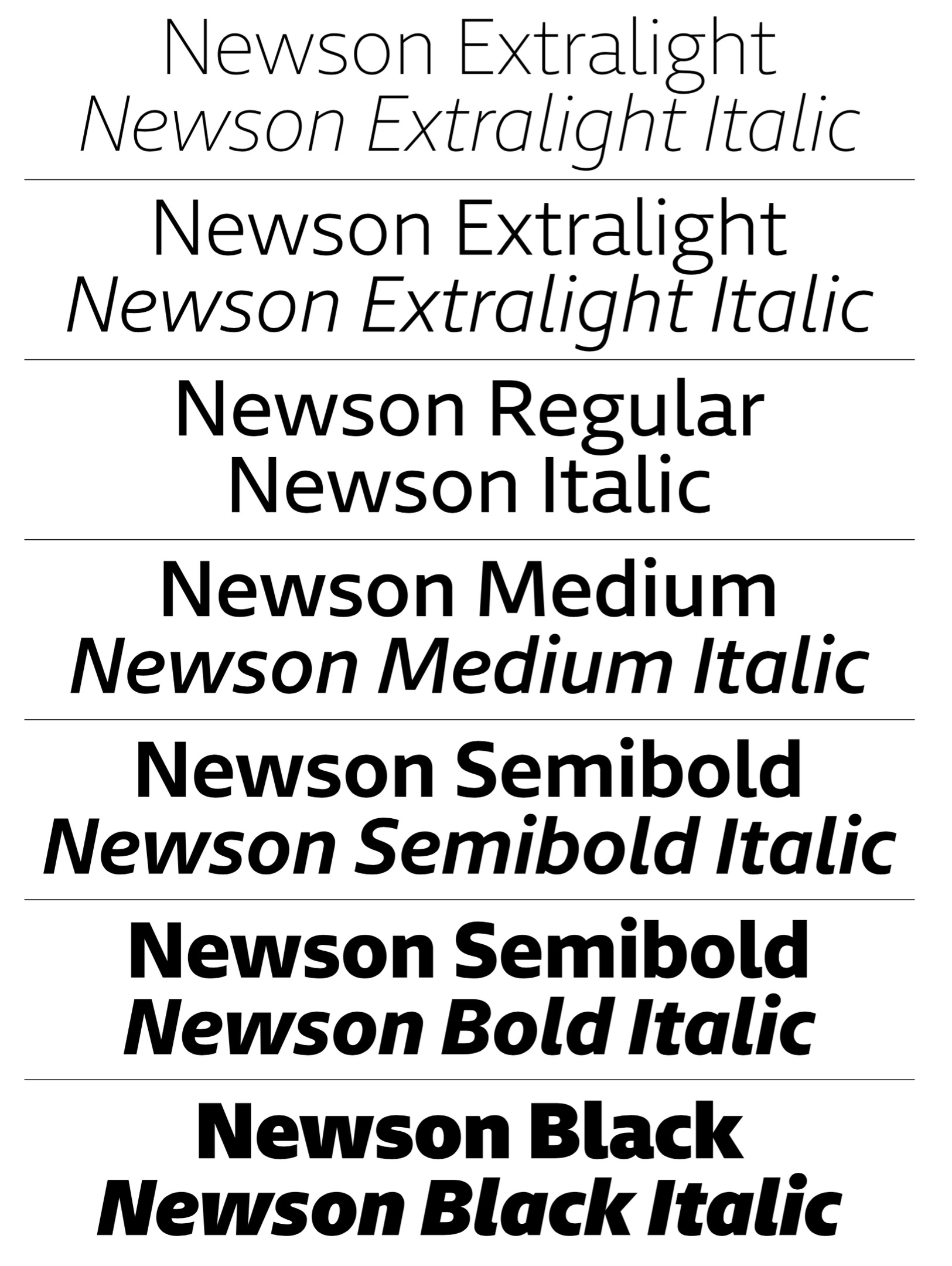
Newson Font
Newson Font is perfect for contemporary news publications, digital journalism platforms, modern magazine layouts, editorial design projects, broadcast media graphics, online news websites, progressive newspaper design, media company branding, journalistic documentation, and information design applications. This modern typeface excels in applications where editorial clarity, news credibility, and contemporary communication are fundamental requirements.
Newson Font is exciting because it revolutionizes news typography by combining the authority of traditional journalism with the clarity demands of digital media consumption. Its carefully engineered letterforms feature optimized spacing, enhanced character distinction, and systematic proportions that ensure exceptional readability across all platforms from smartphone screens to large format displays. The font's contemporary character conveys journalistic integrity while embracing the visual requirements of modern multimedia storytelling.
The Newson Font family includes Regular, Bold, Light, Italic, Condensed, and Display variations, each optimized for different editorial applications and news presentation formats. The family features comprehensive character sets including news-specific symbols, editorial marks, and international punctuation. Advanced OpenType features provide tabular figures, small capitals, and contextual alternates that optimize performance for professional journalism and editorial design standards.
Professional designers and editors choose Newson Font for its exceptional performance in news environments and editorial communications. The font's balanced construction enhances information hierarchy and improves reader engagement across print and digital news platforms. Its systematic approach makes it ideal for media organizations seeking to communicate credibility, authority, and contemporary relevance in today's competitive information marketplace.
The editorial excellence of Newson Font transforms news communications with its contemporary clarity and journalistic authority. Its professional character appeals to serious news consumers while providing the technical precision required for complex multimedia storytelling and international news distribution.